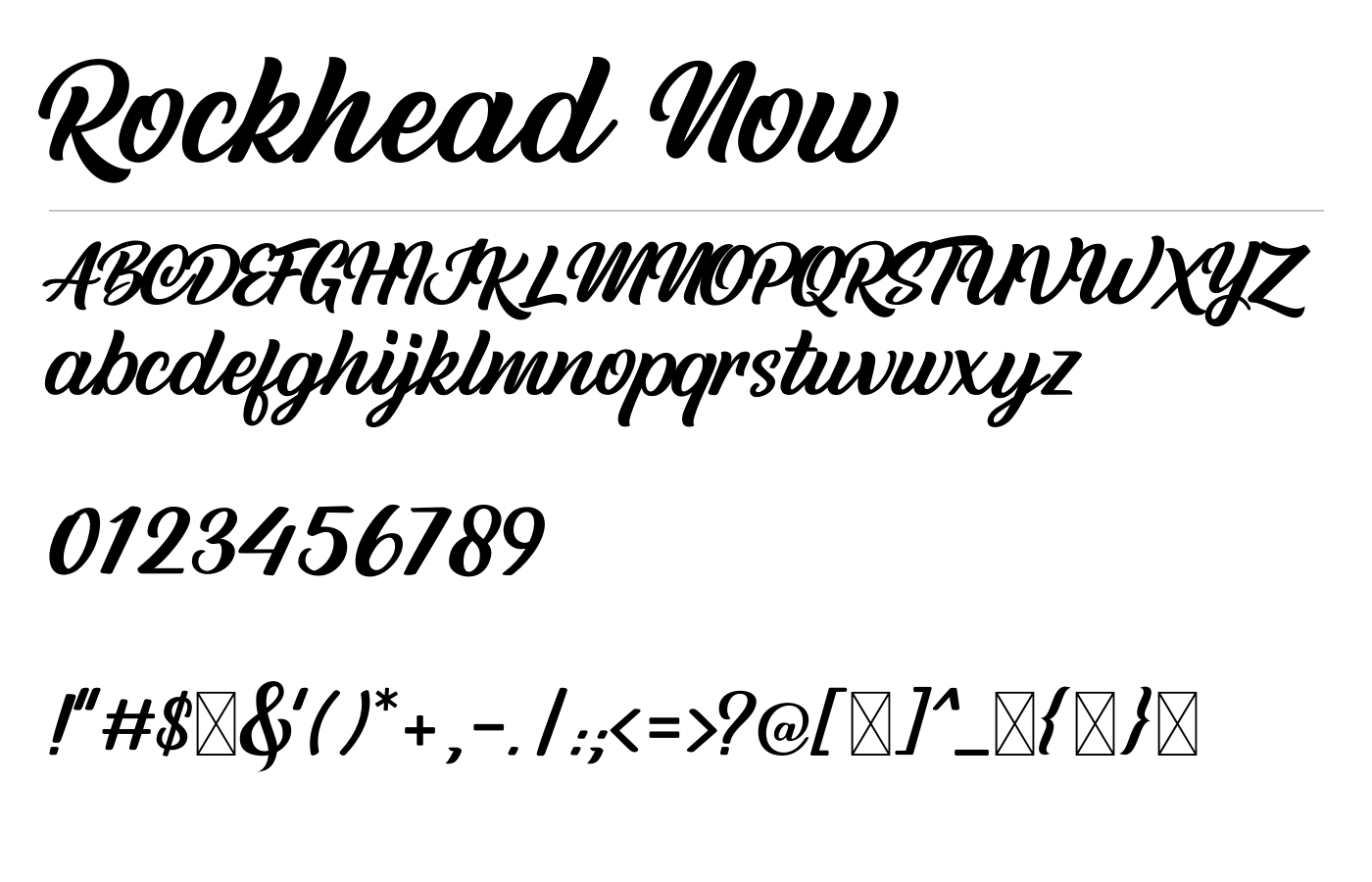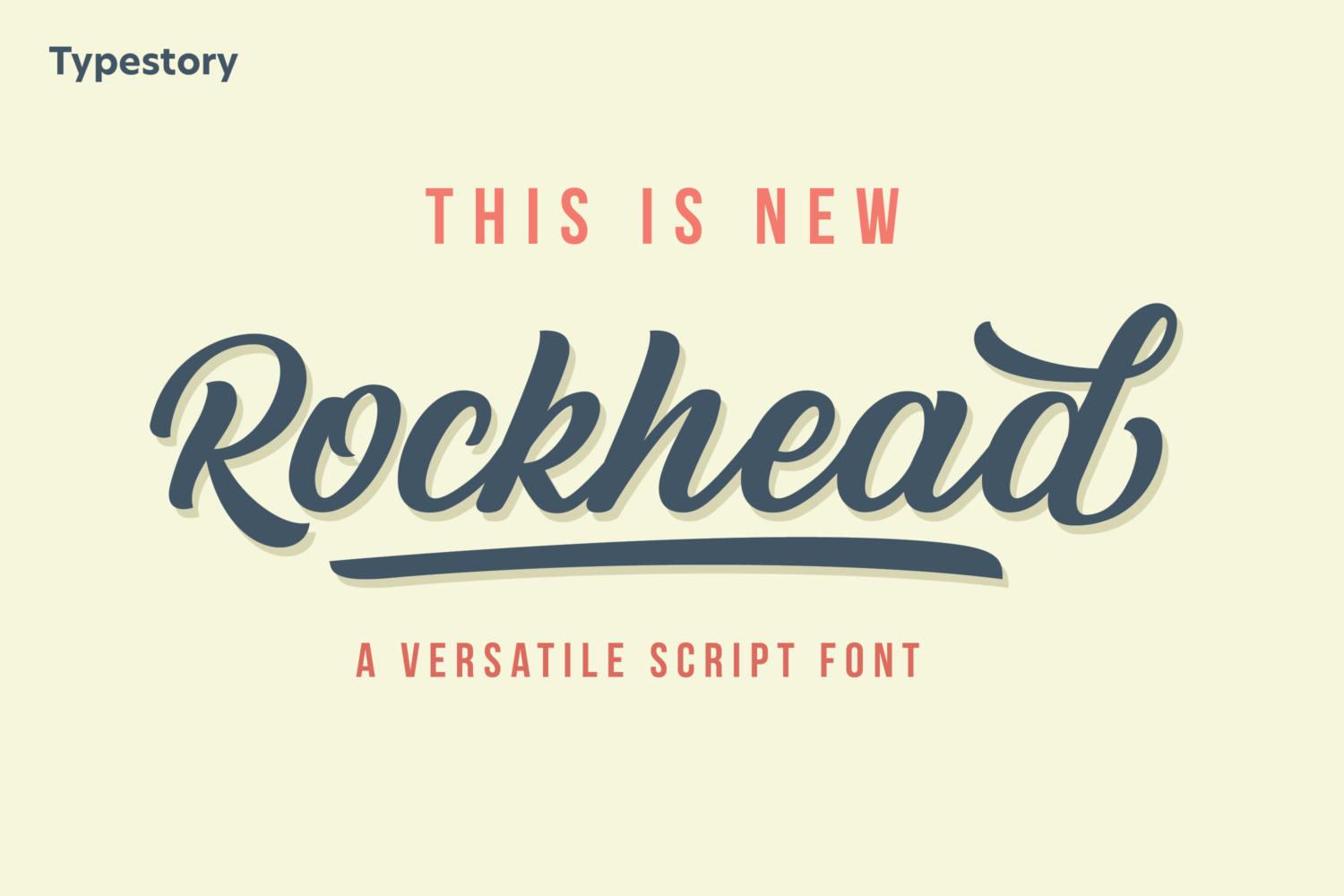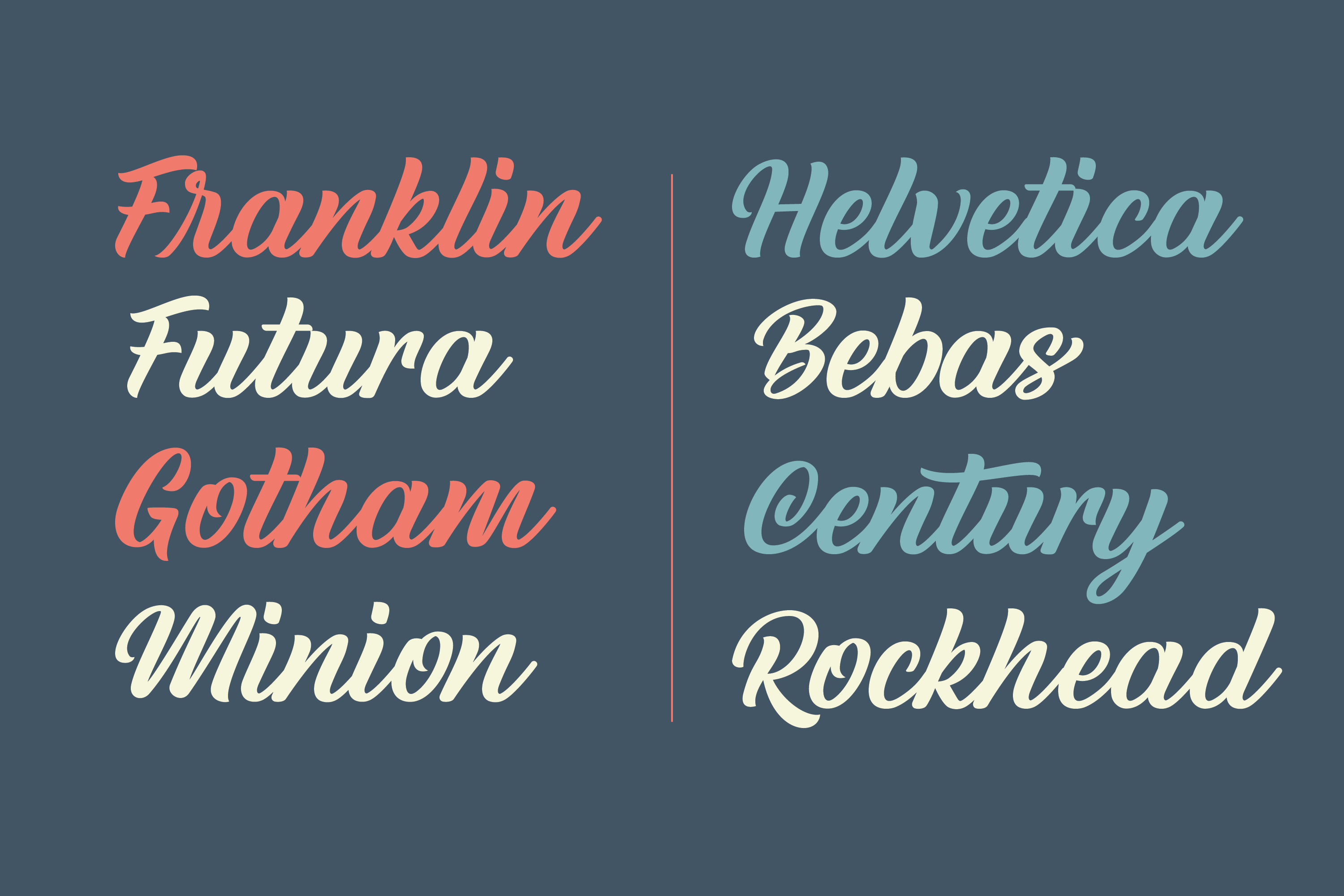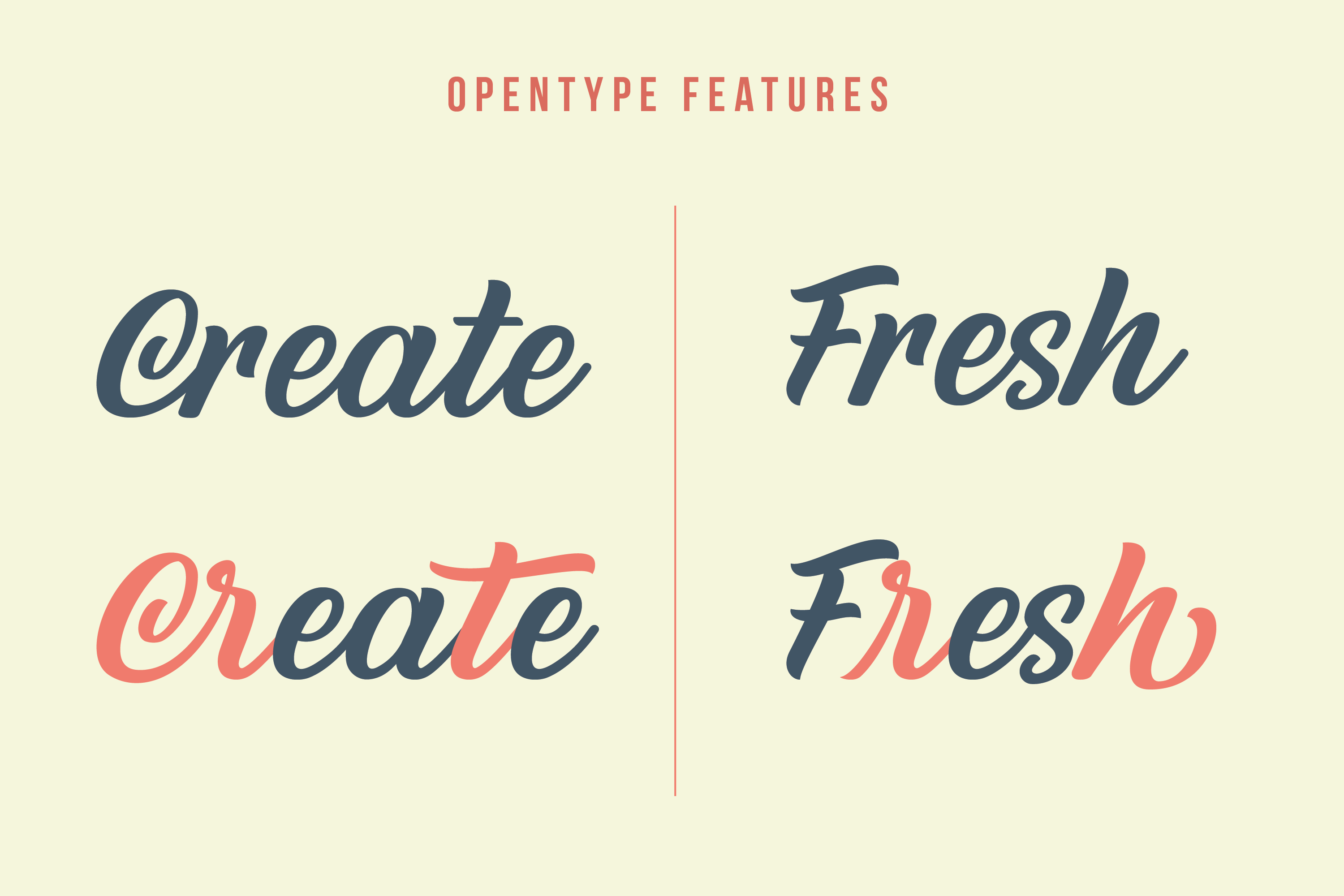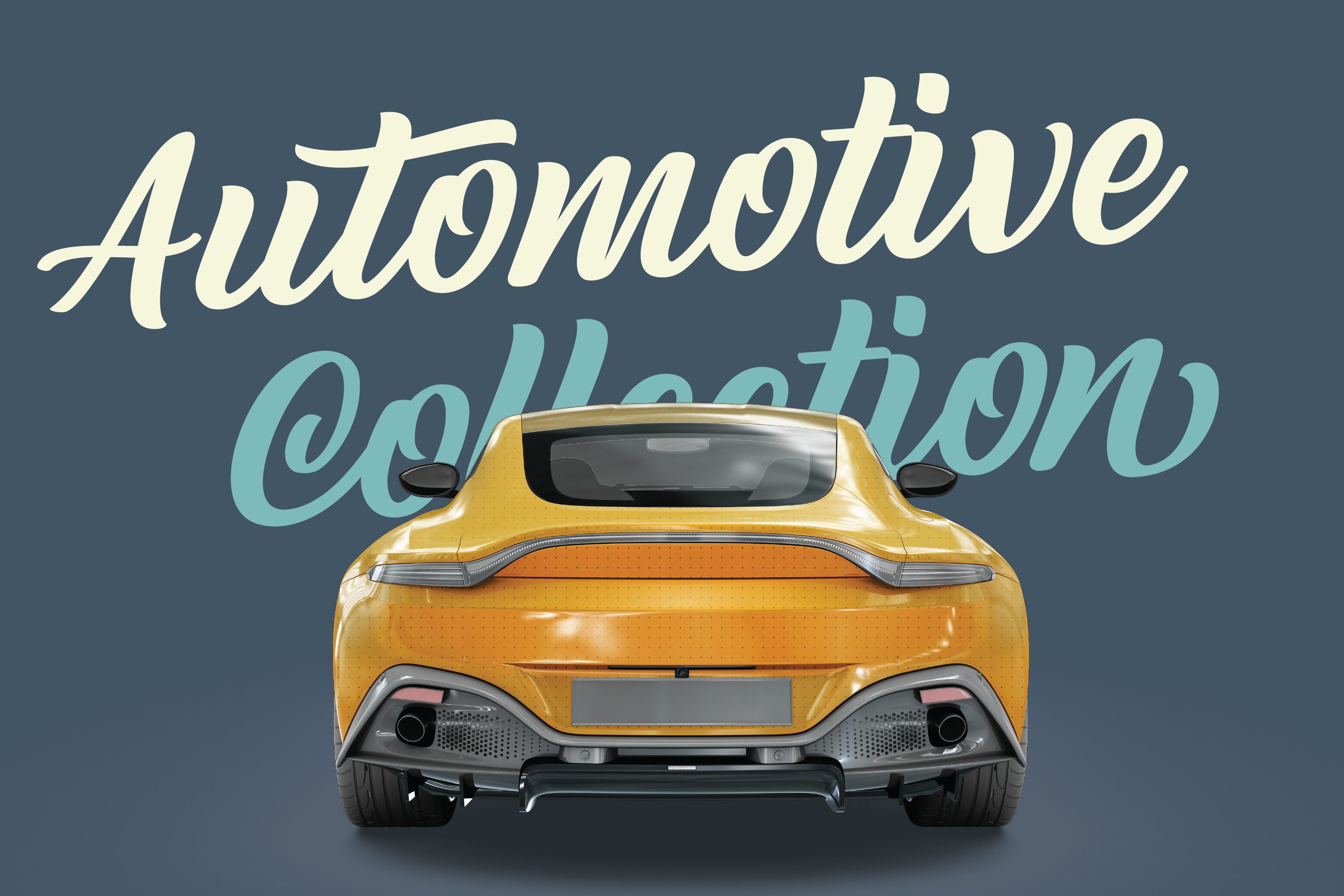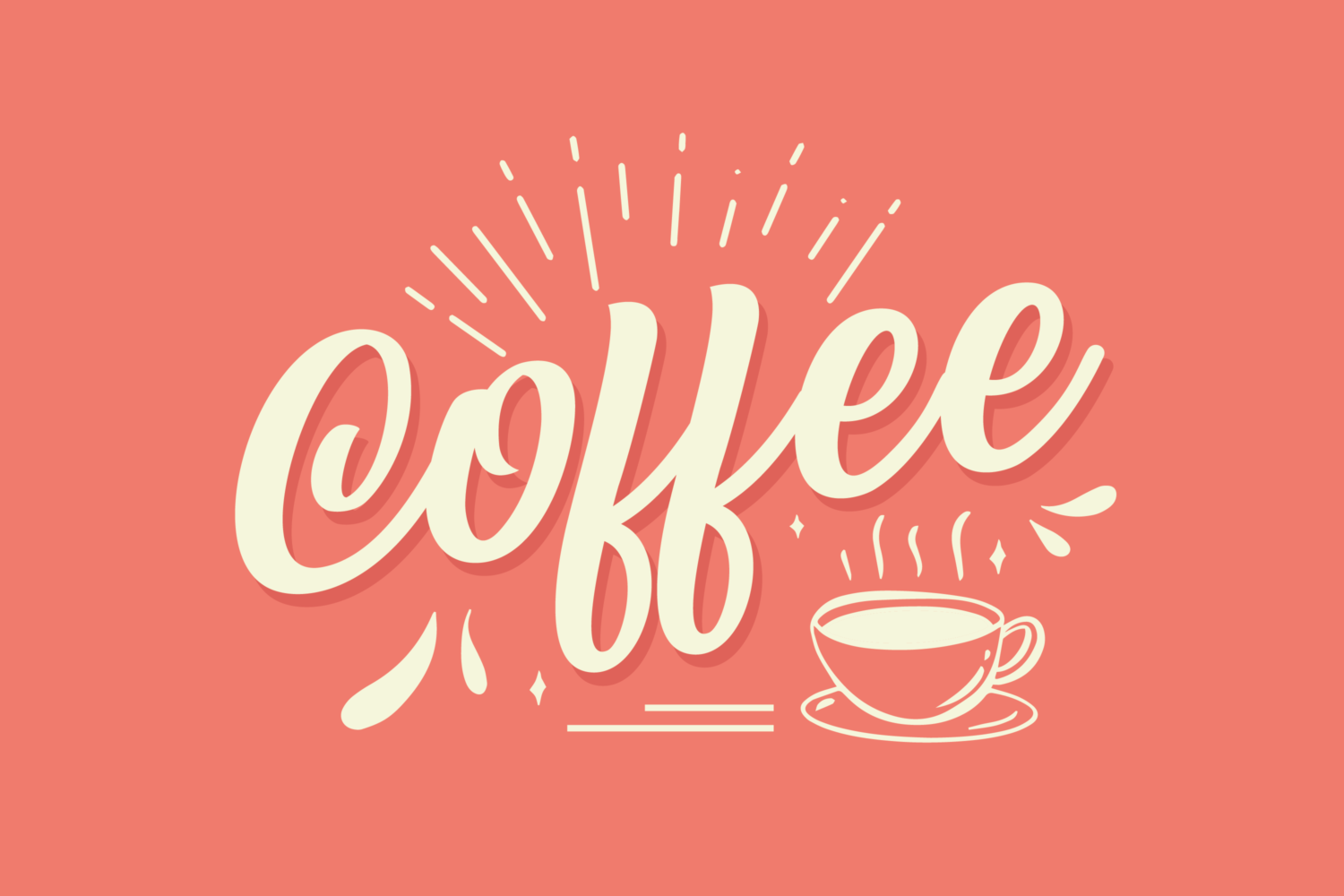
Rockhead Now is a bold and stylish script font with a smooth, flowing design that balances elegance and modernity. Its slightly condensed letterforms and moderate contrast give it a confident yet approachable feel, making it ideal for branding, headlines, and creative projects where a friendly but refined touch is needed. This font works especially well in fashion, logos, and editorial uses, adding personality without sacrificing readability.
Rockhead Now
About Rockhead Now
| Font family | Rockhead Now |
| Designer | Dr. Diki Hermawan |